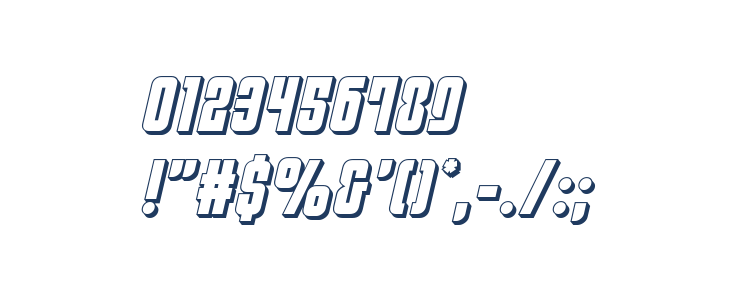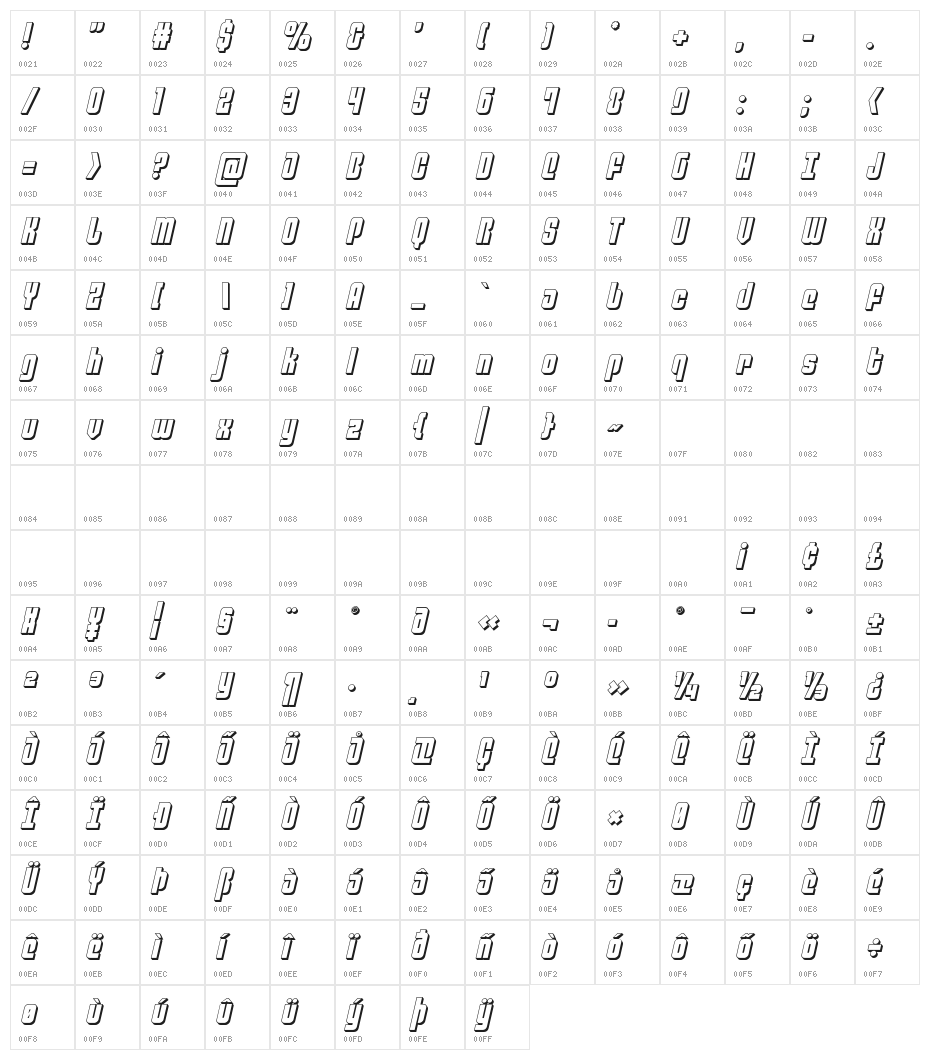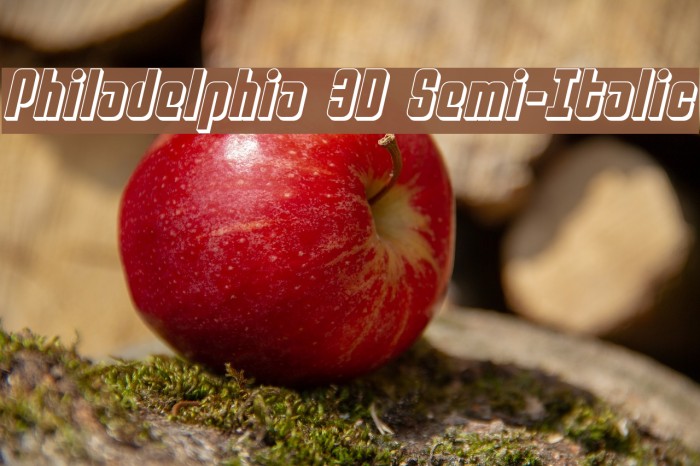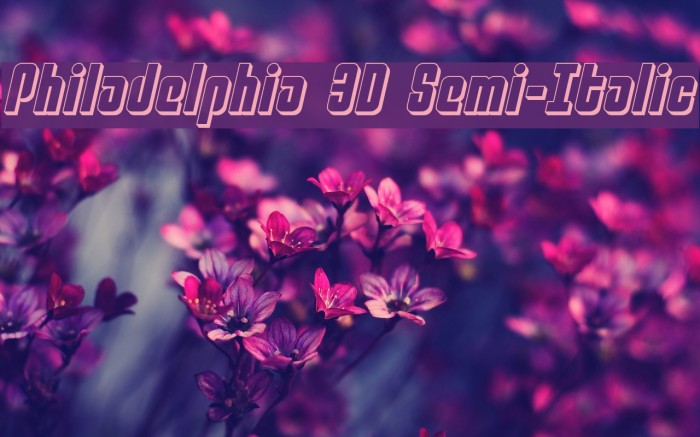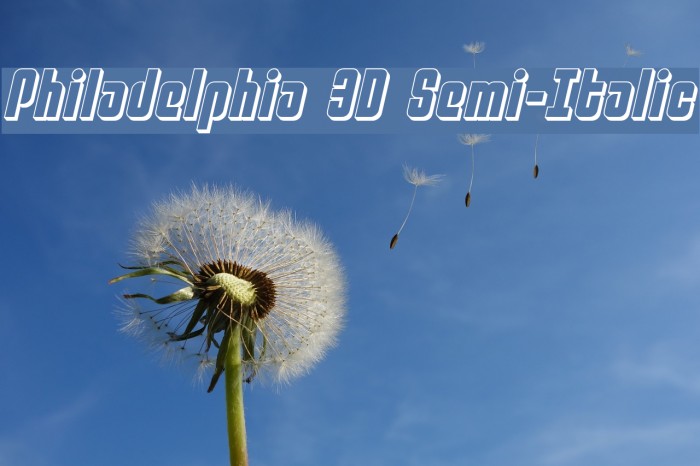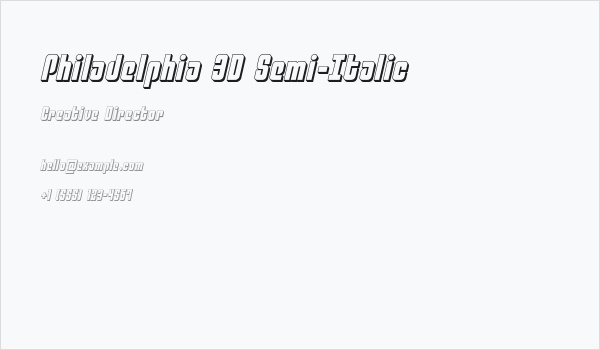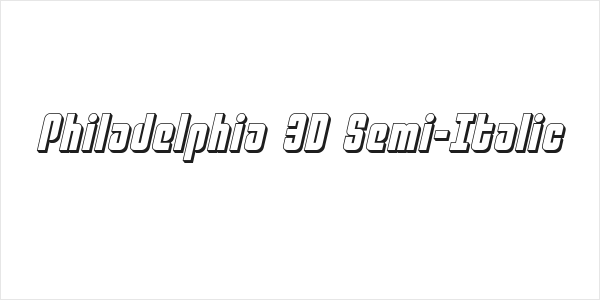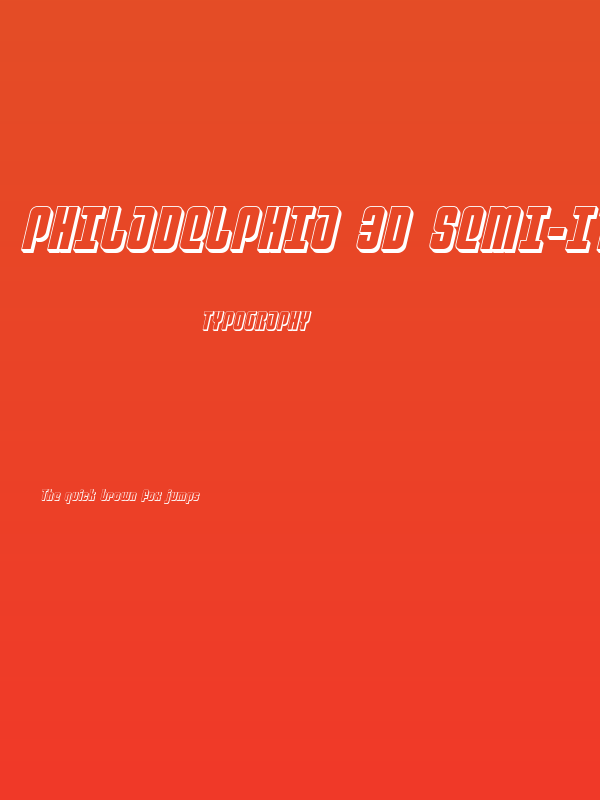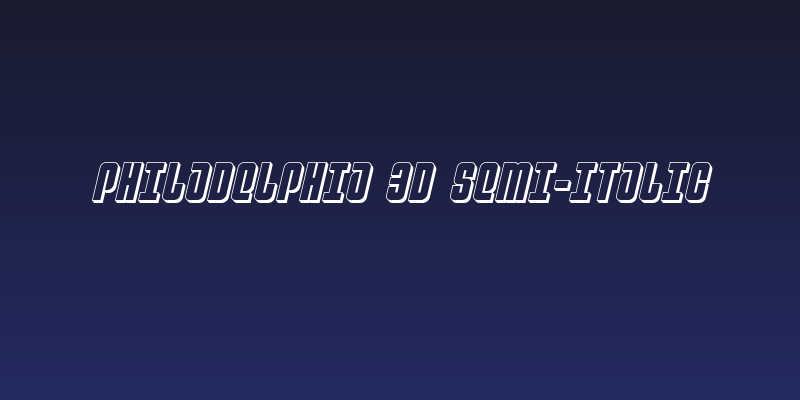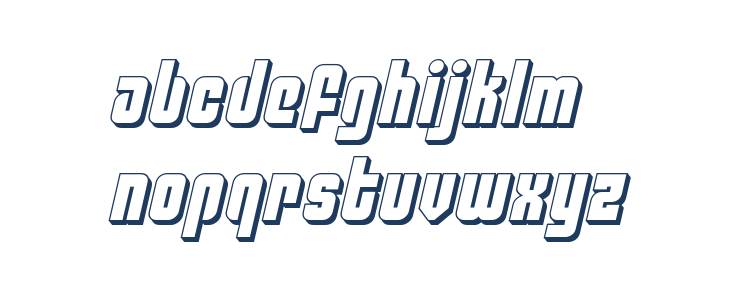
Philadelphia 3D Semi-Italic Font
Philadelphia 3D Semi-Italic Description
This font features a bold, three-dimensional appearance with a semi-italic slant, giving it a dynamic and modern look. The characters are blocky and robust, with a shadow effect that adds depth and a sense of movement. The uppercase and lowercase letters maintain a consistent style, with sharp angles and clean lines. Numbers and special characters are designed to match the bold and impactful style of the alphabet. The overall design is eye-catching and suitable for projects that require a strong visual presence.